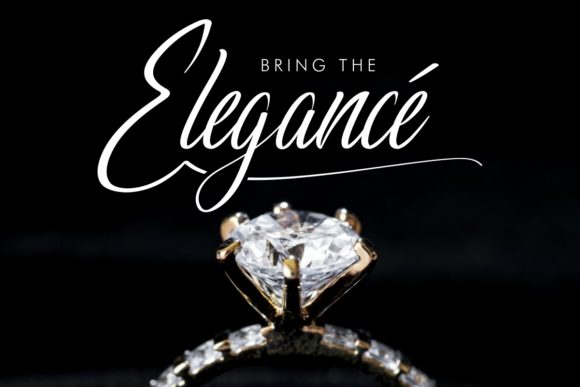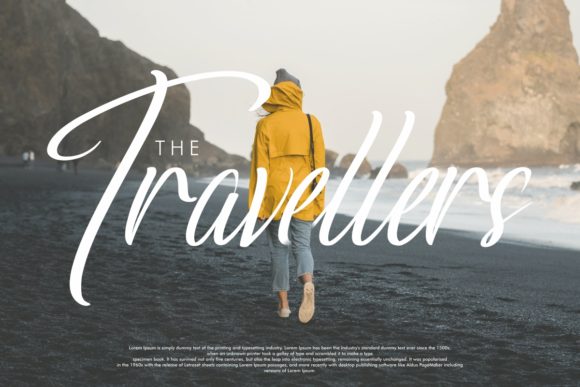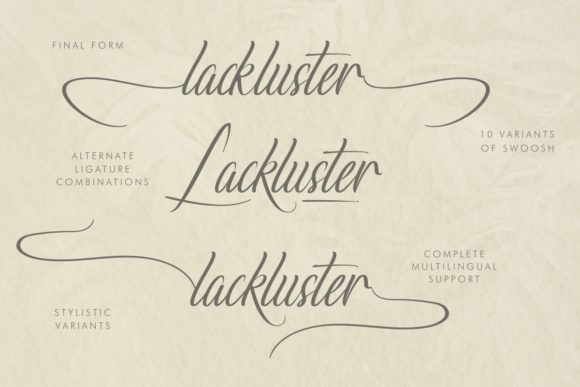
Introduction to Lackluster Font
Lackluster is a flowing script font with a relaxed theme, featuring a lovely style.
No matter the topic, this font will be an incredibly asset to your fontsโ library, as it has the potential to elevate any creation .
Key Features of Lackluster Font
Why Choose Lackluster Font?
Lackluster Font offers exceptional quality and versatility, making it a valuable addition to your design toolkit. Whether you’re creating for personal projects or commercial use, Lackluster Font delivers professional results.